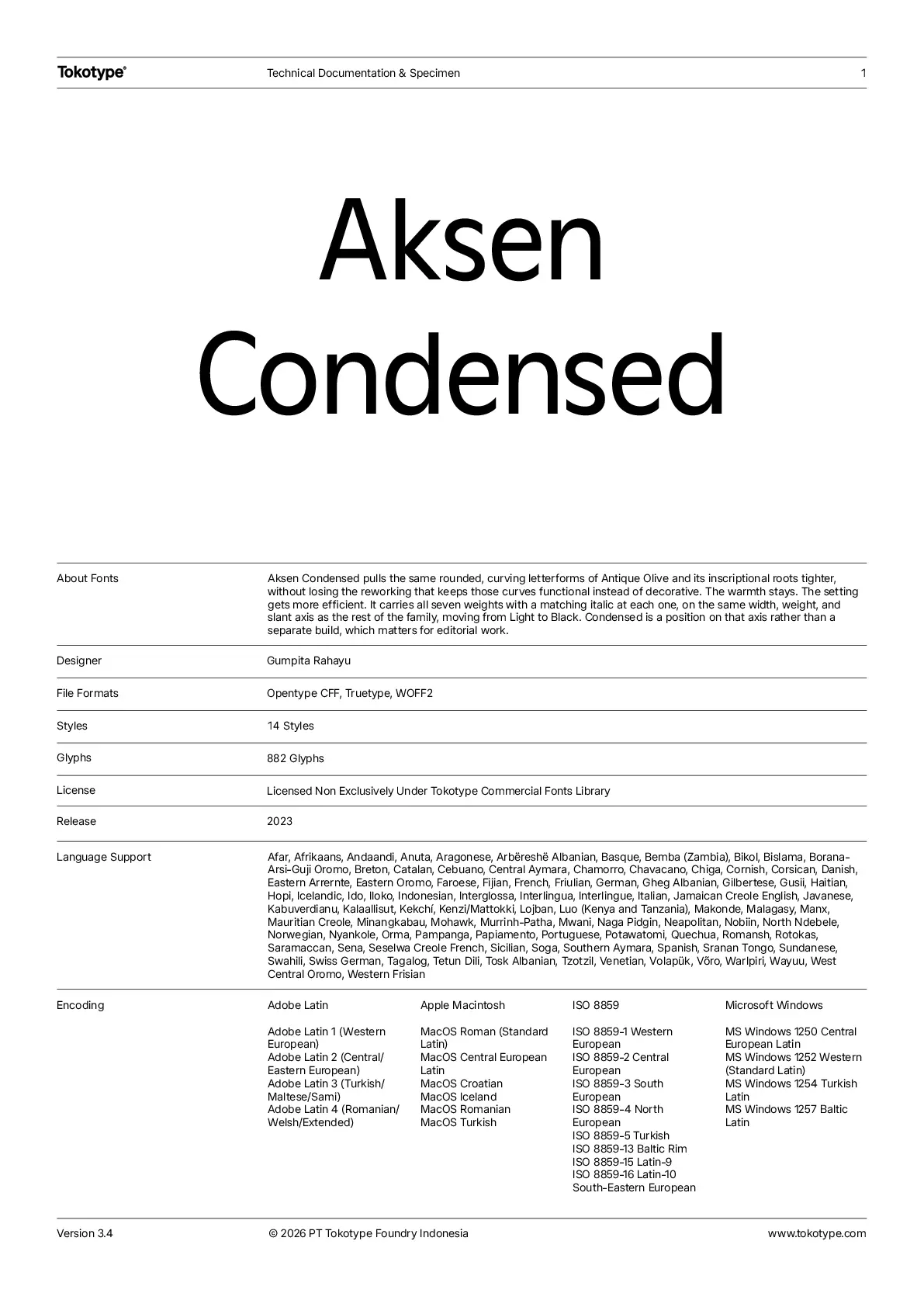
Aksen Condensed
Aksen Condensed pulls the same rounded, curving letterforms of Antique Olive and its inscriptional roots tighter, without losing the reworking that keeps those curves functional instead of decorative. The warmth stays. The setting gets more efficient. It carries all seven weights with a matching italic at each one, on the same width, weight, and slant axis as the rest of the family, moving from Light to Black. Condensed is a position on that axis rather than a separate build, which matters for editorial work: pull a headline tighter mid-layout and the italics and weights all follow without swapping fonts.
Gumpita Rahayu